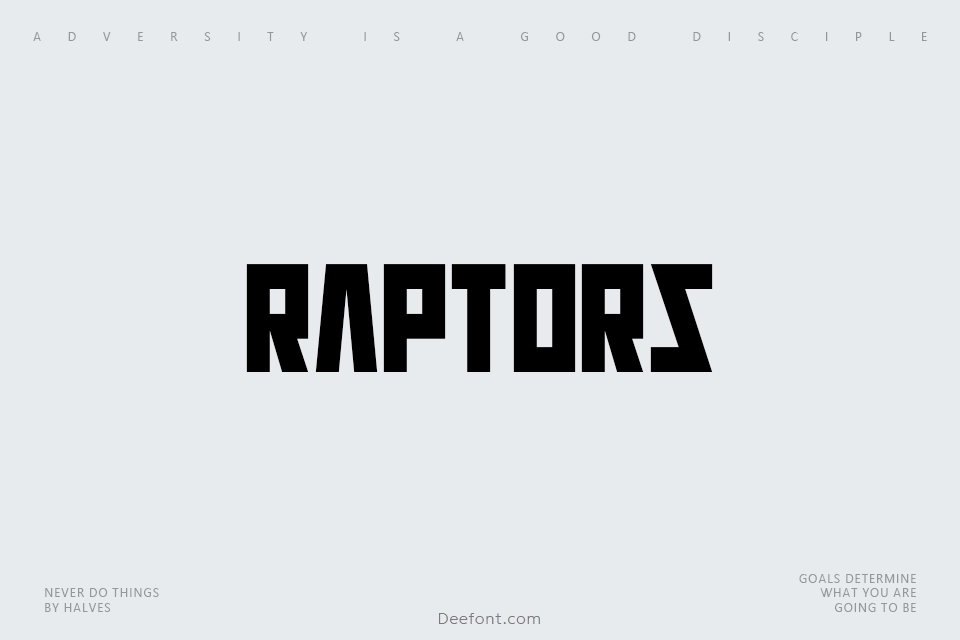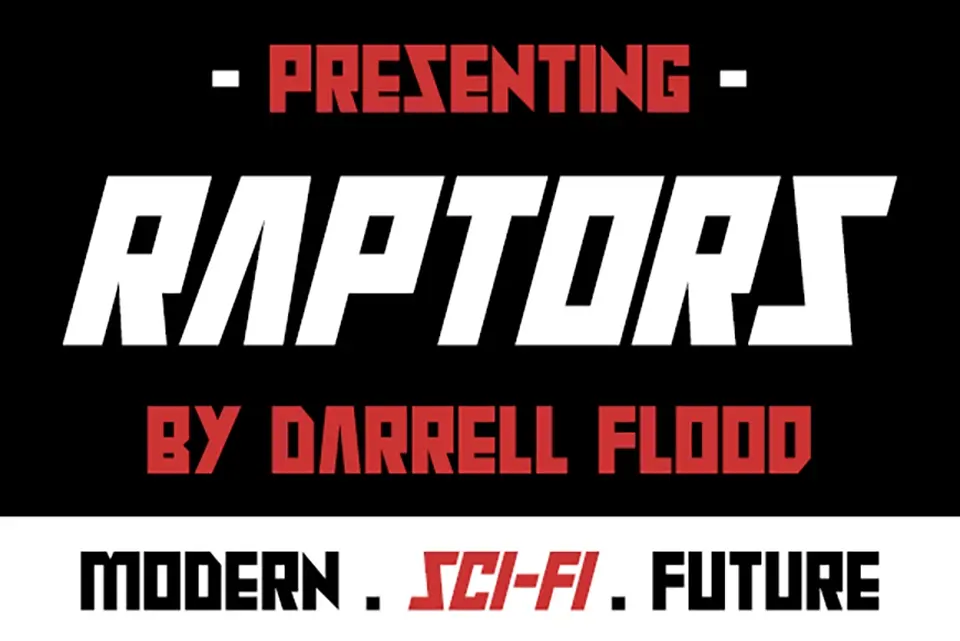
Raptors Font
Raptors is a futuristic techno and sci-fi inspired display font designed with bold, geometric forms and pixelated elements. This typeface combines retro-futuristic aesthetics with contemporary design sensibilities, featuring a squarish character structure that delivers striking visual impact. Perfect for modern projects requiring cutting-edge typography, Raptors excels in headlines, posters, and digital media where commanding presence and technological appeal are essential. The font’s unique personality makes it an excellent choice for gaming, sci-fi themes, and tech-forward branding applications.